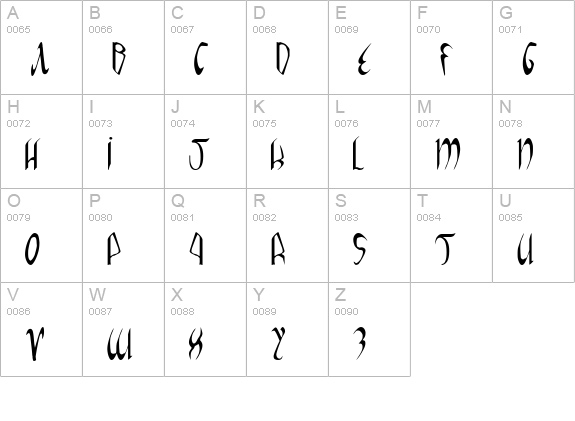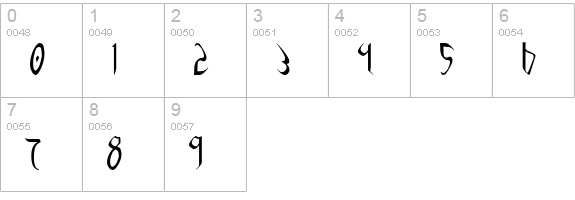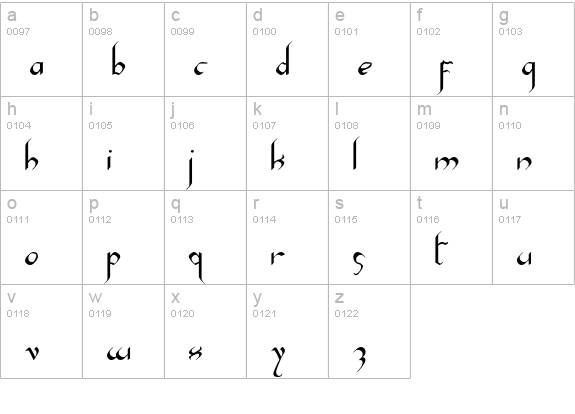
Xaphan font is a beautifully crafted typeface that combines elegance with modernity. Its sleek lines and unique curves make it perfect for a wide range of design projects, from logos to branding to web design. This versatile font exudes sophistication and style, making it a popular choice among designers and creatives. What sets Xaphan font apart is not only its stunning aesthetics but also the fact that it is available for free. Yes, you read that right - this exceptional font can be downloaded at no cost from FontsMarket.com. Whether you're a seasoned designer looking to add a fresh touch to your work or a beginner exploring different typefaces, Xaphan font is a must-have in your font collection. With its wide range of weights and styles, Xaphan font offers endless possibilities for customization and creativity. Its clean and crisp appearance ensures readability across various platforms and mediums, making it a reliable choice for any design project. Elevate your designs with the timeless elegance of Xaphan font - download it for free today at FontsMarket.com and let your creativity soar.